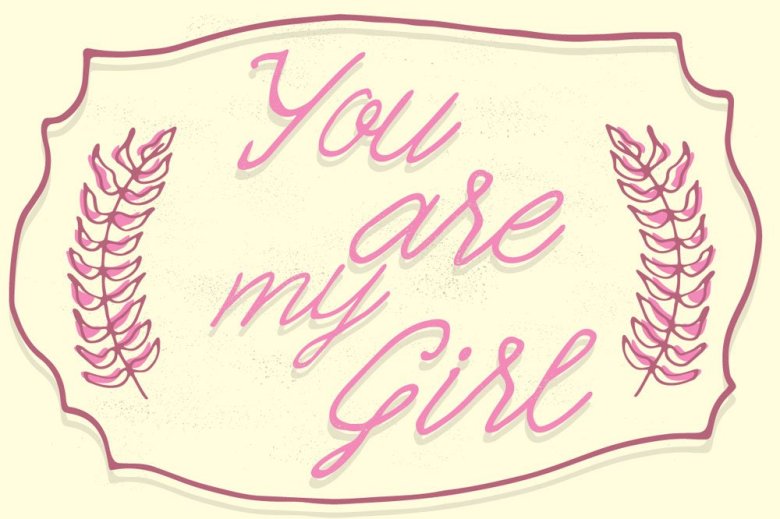
Quickline Script
Introducing Quickline Script! Quickline Script is a monoline hand type script font with the hand draw design style. It is highly suitable for poster, branding, logo, wedding card, etc. You can easily give the feel of hand type design style into your project.